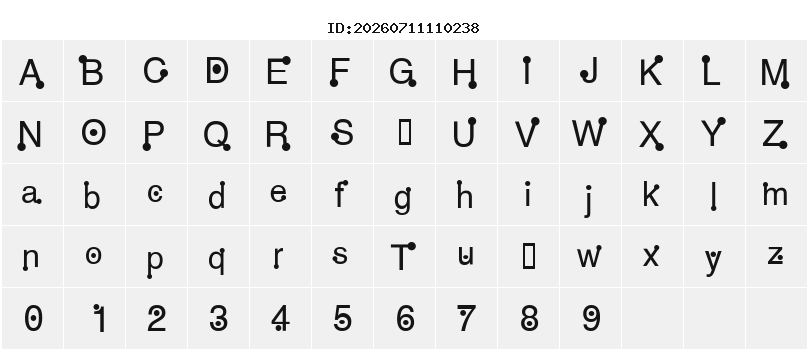
H@ppy Preview
About H@ppy.ttf
H@ppy.ttf is a modern, elegant sans-serif font designed for ultimate readability and visual harmony. Perfect for branding, headlines, web design, and print materials.